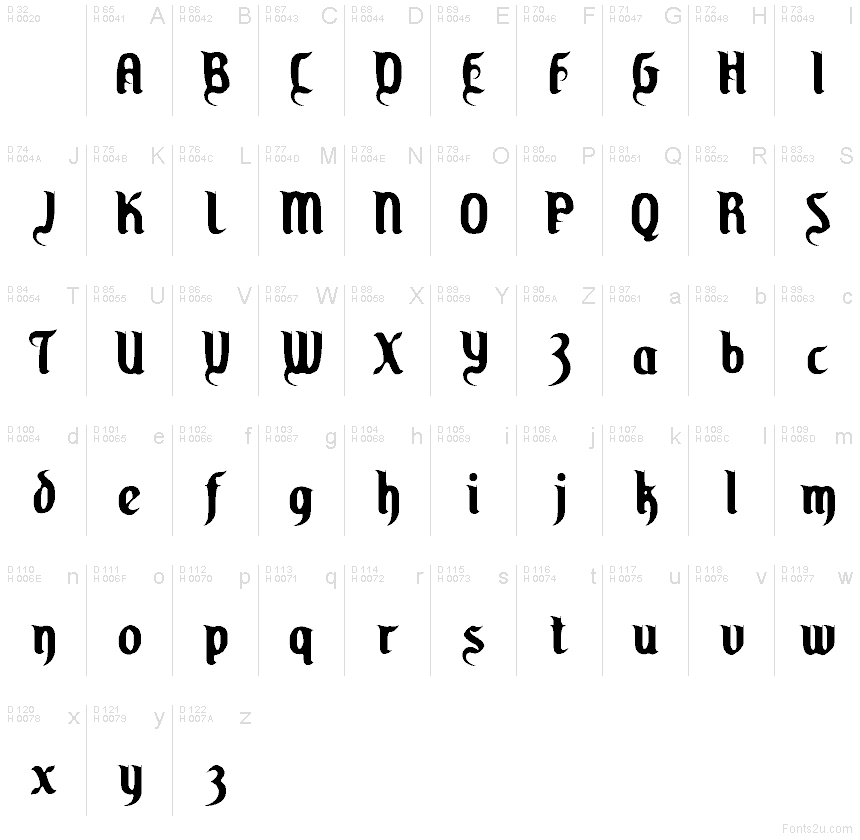
CS Shore Drawn font by Craft Supply Co. is a free hand-drawn gothic font. Built within the CS Shore family, it trades rigid blackletter geometry for inky, chiseled strokes and sea-worn curves. The letterforms feel carved and slightly irregular—heavy stems taper into hook-like terminals, while negative spaces stay tight, adding drama without sacrificing legibility. It’s gothic with grit: tactile, shadowy, and unmistakably human.
Using CS Shore Drawn, headlines hit with a ceremonial weight that still feels alive. This free font shines on album art, dark fantasy book covers, tattoo-inspired branding, craft beer labels, game titles, and event posters. Its condensed rhythm lets you stack words without losing impact. For balance, pair it with a neutral grotesque sans and keep body copy small and airy to let the display forms breathe.